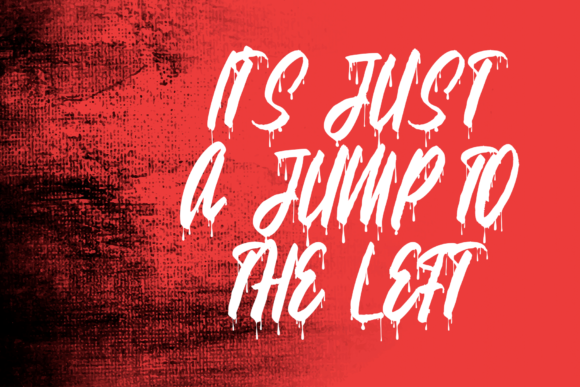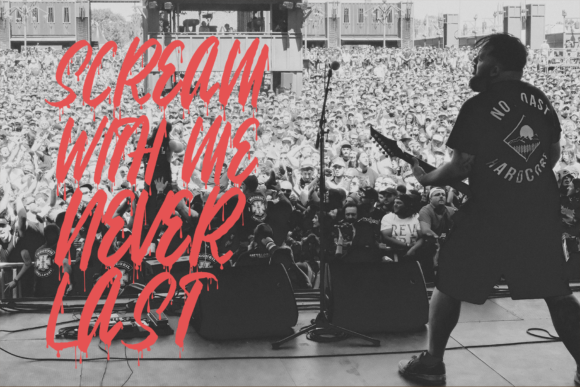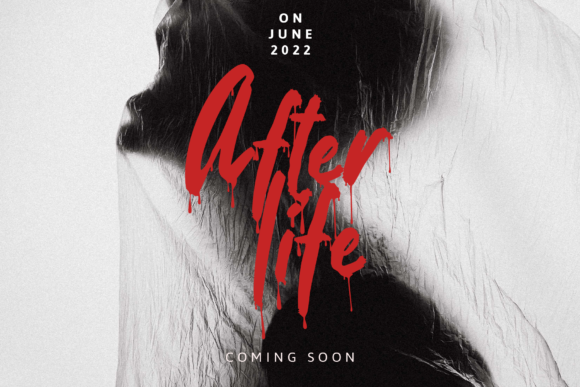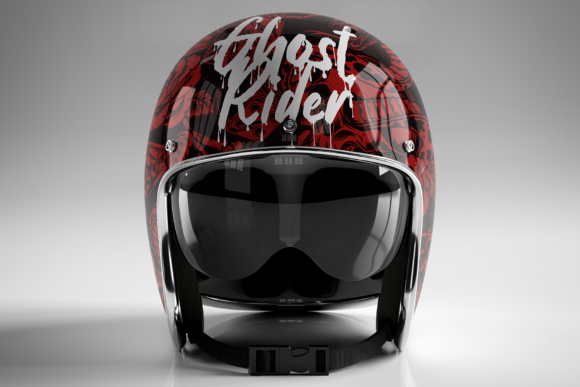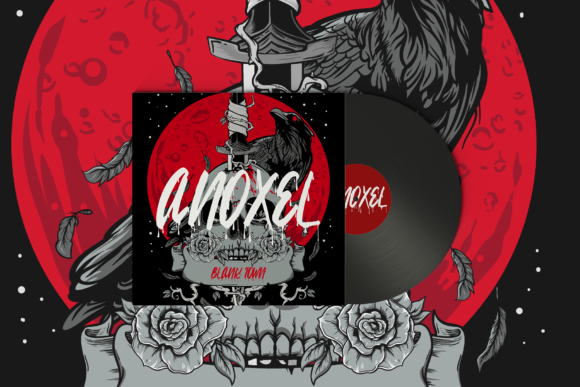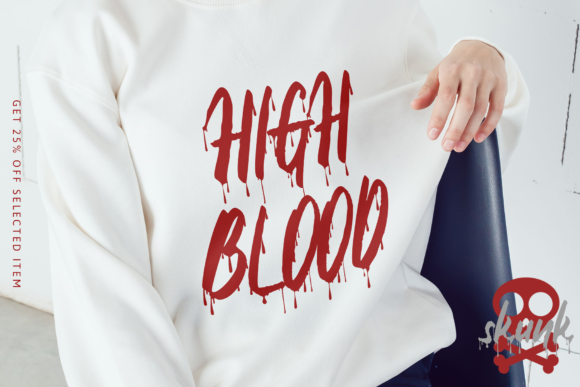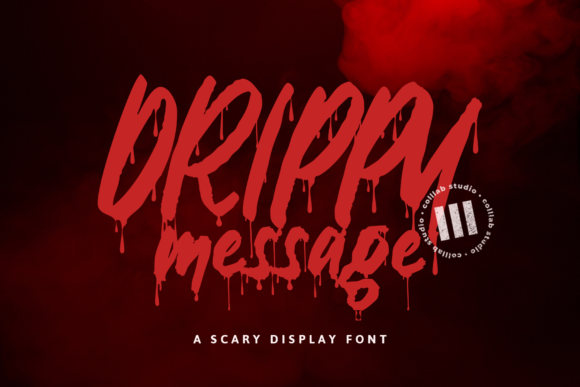
Drippy Message Font: The Ultimate Choice for Spooky Halloween Designs
Are you looking for a font that will add a touch of spookiness to your Halloween designs? Look no further than the Drippy Message Font. This unique and scary display font is perfect for a wide range of Halloween projects, from invitations and posters to social media graphics and more.
What Makes Drippy Message Font So Special?
Drippy Message Font is a one-of-a-kind font that is sure to grab attention. Its quirky and eerie design makes it perfect for Halloween-themed designs, but it’s also versatile enough to be used for other projects that require a bold and eye-catching font. The font’s drippy, irregular design gives it a haunting quality that’s sure to send shivers down the spine.
Perfect for Halloween Projects
Drippy Message Font is specifically designed with Halloween in mind. Its spooky, eerie feel makes it perfect for a wide range of Halloween projects, including:
- Halloween party invitations
- Spine-tingling posters and flyers
- Eerie social media graphics
- Creepy craft projects, such as Halloween-themed scrapbooking and card making
Why Designers and Crafters Love Drippy Message Font
Designers and crafters love Drippy Message Font for its unique and versatile design. Here are just a few reasons why:
- Easy to read: Despite its quirky design, Drippy Message Font is surprisingly easy to read, making it perfect for use in a wide range of projects.
- Highly versatile: Drippy Message Font can be used for a wide range of projects, from formal invitations to social media graphics.
- Unique and eye-catching: The font’s drippy, irregular design makes it stand out from more traditional fonts, adding a touch of personality to any project.
Tips for Using Drippy Message Font
Here are a few tips for using Drippy Message Font in your designs:
- Use it sparingly: While Drippy Message Font is perfect for headlines and titles, it can be overwhelming if used for large blocks of text. Use it sparingly to add emphasis and create visual interest.
- Experiment with colors: Drippy Message Font looks great in a wide range of colors, from bold and bright to dark and muted. Experiment with different colors to find the perfect look for your project.
- Pair it with other fonts: Drippy Message Font pairs well with a wide range of other fonts, from simple sans-serif fonts to more elaborate script fonts. Experiment with different pairings to find the perfect look for your project.
Drippy Message Font is a unique and scary display font that’s perfect for a wide range of Halloween projects. Its quirky and eerie design makes it stand out from more traditional fonts, adding a touch of personality to any project. Whether you’re a designer or crafter, Drippy Message Font is sure to become a go-to font for all your Halloween design needs.
- What type of font is Drippy Message Font? Drippy Message Font is a display font, perfect for use in headlines and titles.